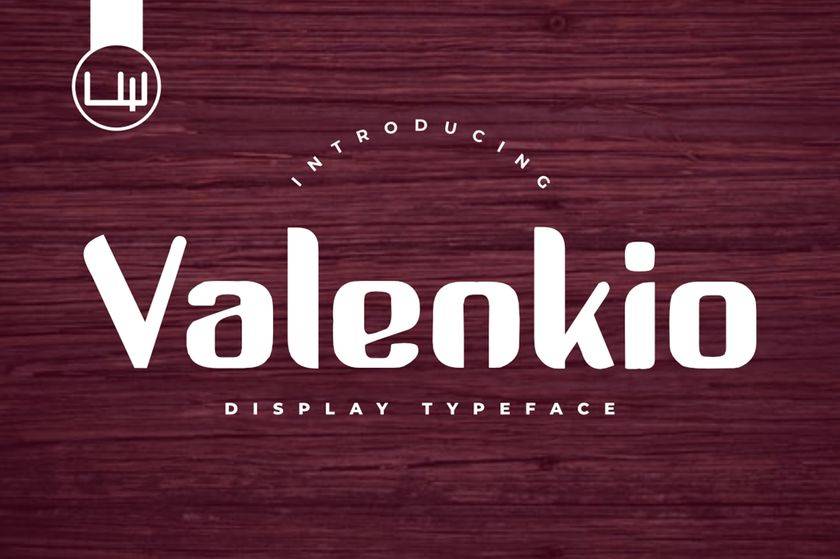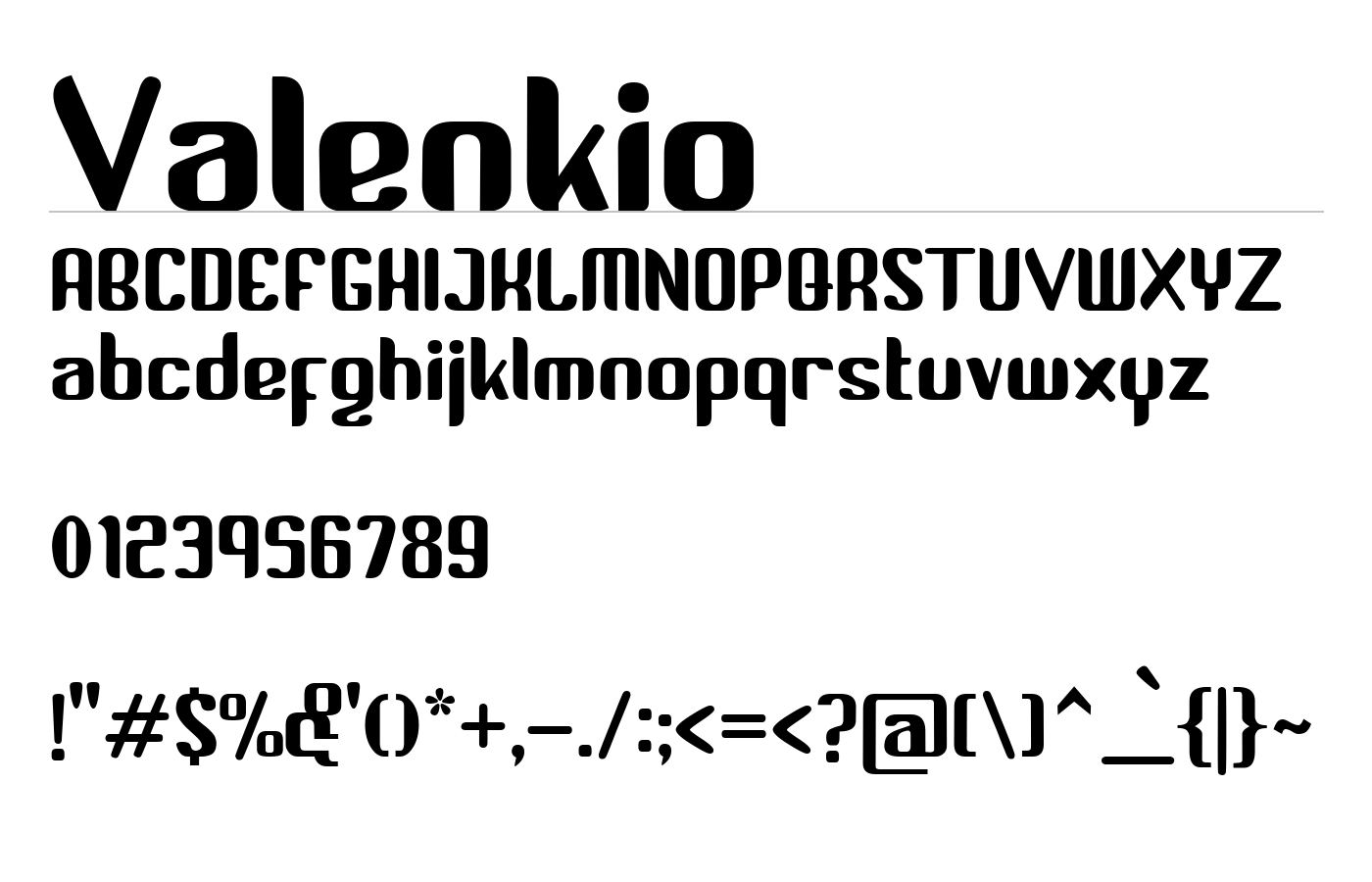
Valenkio is a bold, condensed sans serif font with a modern, geometric style that features smooth, rounded edges and a distinctive vertical emphasis. Its unique letterforms, such as the single-story 'a' and 'g' and the curved, blocky shapes, give it a futuristic yet approachable feel, making it ideal for headlines, branding, and display use where a strong, contemporary impact is desired. Valenkio works well in creative, tech-savvy, or urban-themed projects that require a font with personality and clear readability.
Valenkio Font
About Valenkio Font